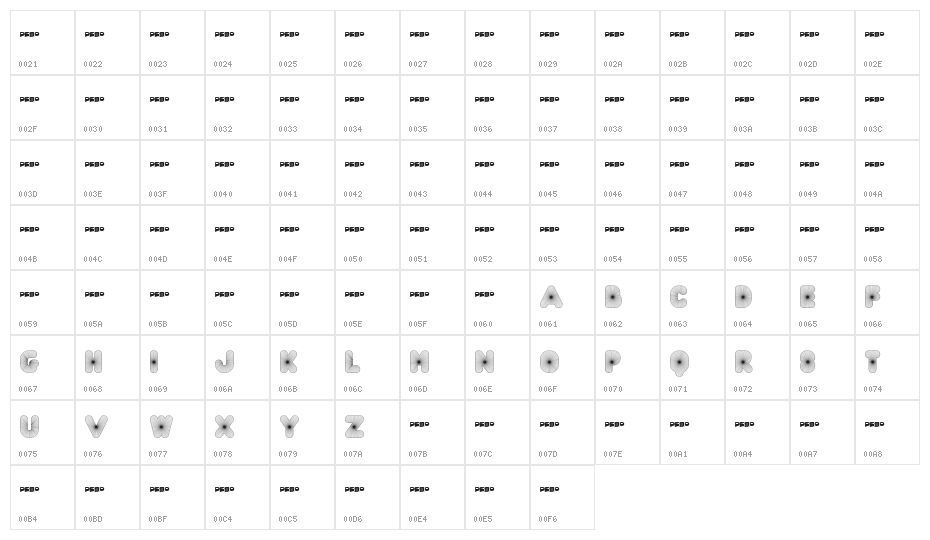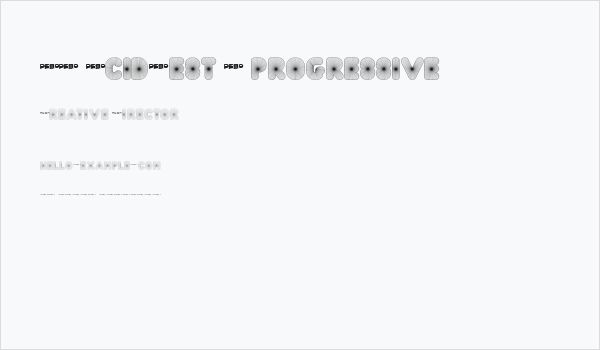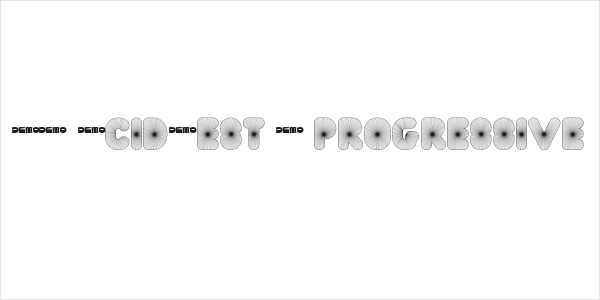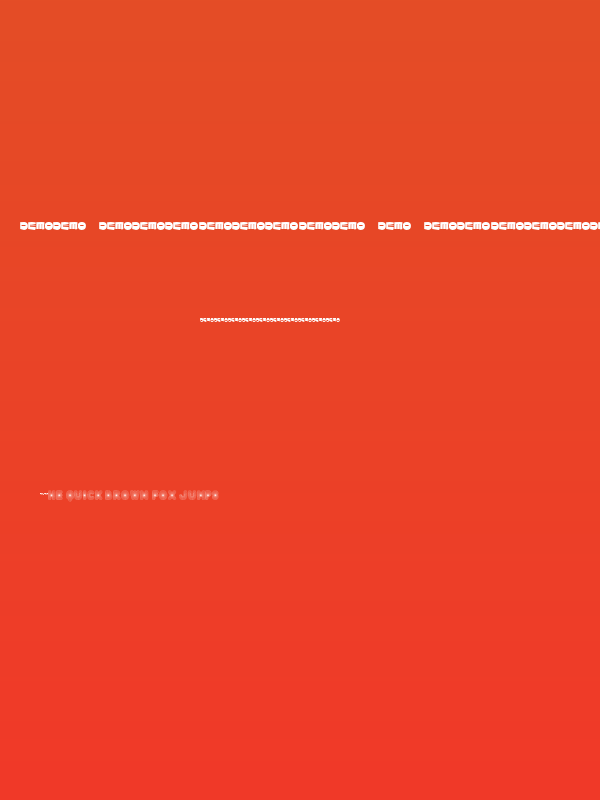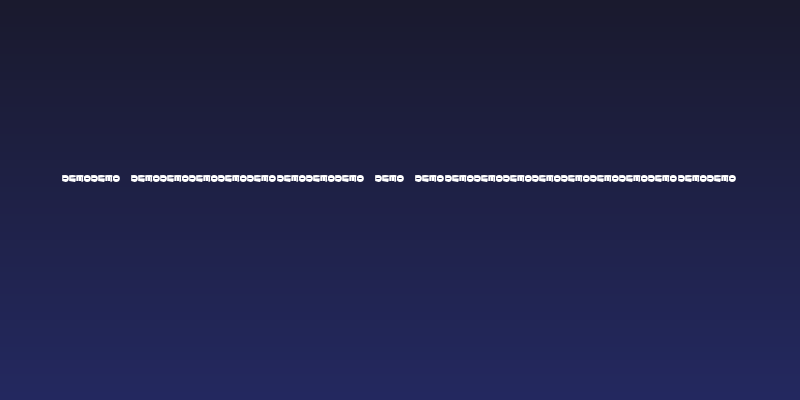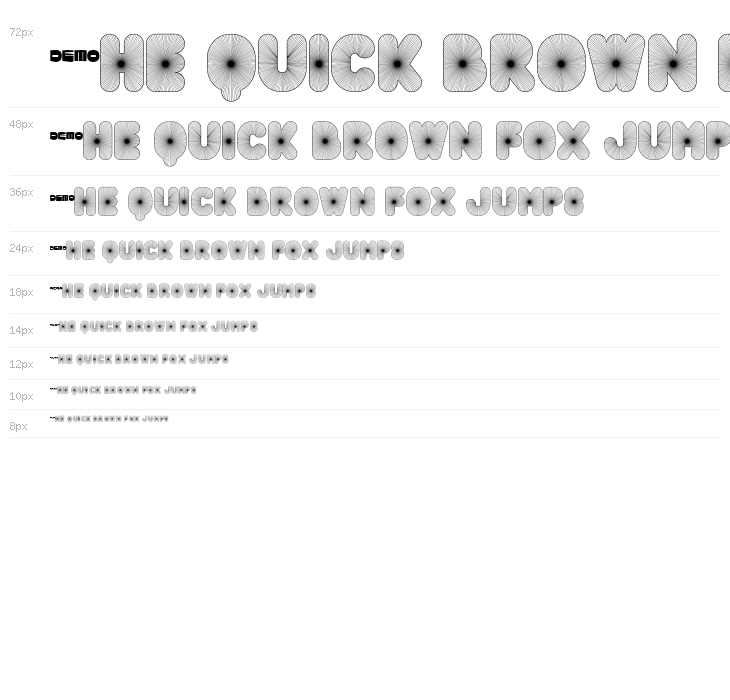
FT AcidTest 2 progressive Font
FT AcidTest 2 progressive Description
This font features a unique and intricate design, characterized by a series of concentric lines that form each letter, creating a textured and dynamic appearance. The uppercase letters are bold and rounded, with a distinct geometric pattern that gives them a futuristic and artistic feel. The font's structure is consistent, with each character maintaining a uniform width and height, contributing to a cohesive and balanced look. The detailed line work within each letter adds depth and visual interest, making it stand out in any design project. This font is ideal for creative and modern applications, where a bold statement is desired.
| Proposed Projects | Ideal for album covers, posters, branding, and any project requiring a bold, artistic touch. |